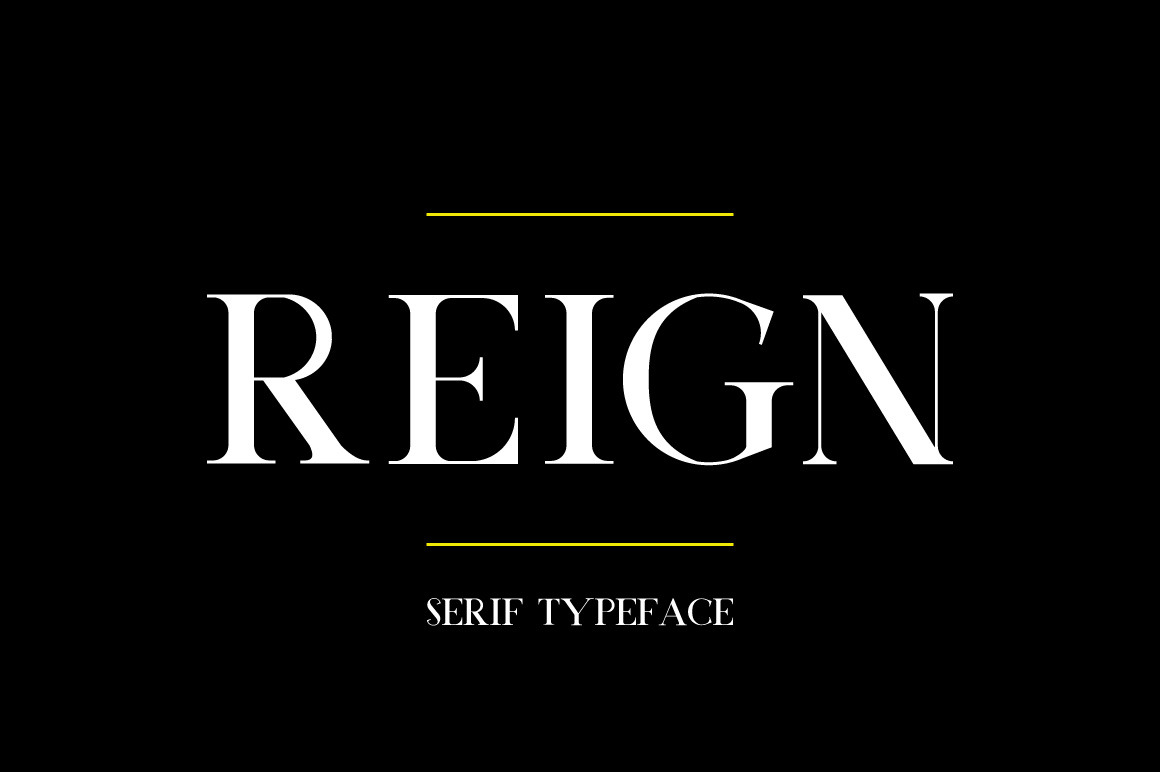
Reign | Serif Typeface
Reign is a sophisticated & simple serif typeface. Works great for logos & titles on a large or small scale. Pairs great with simple sans serif fonts. Includes regular and stencil.